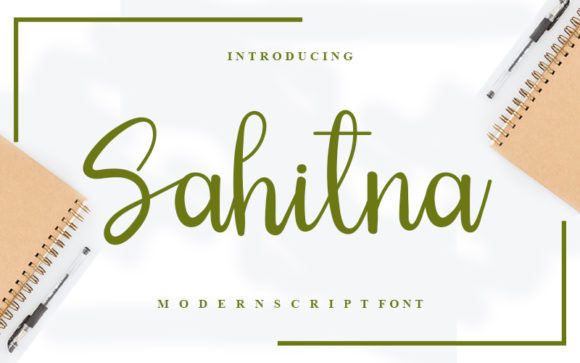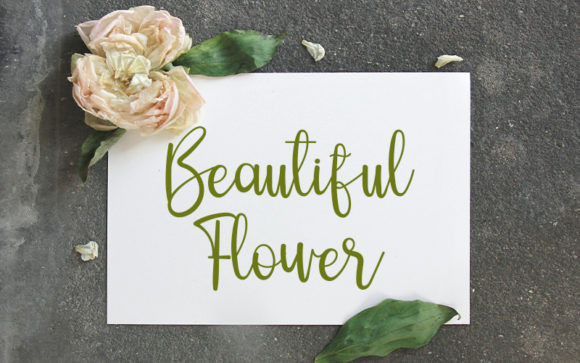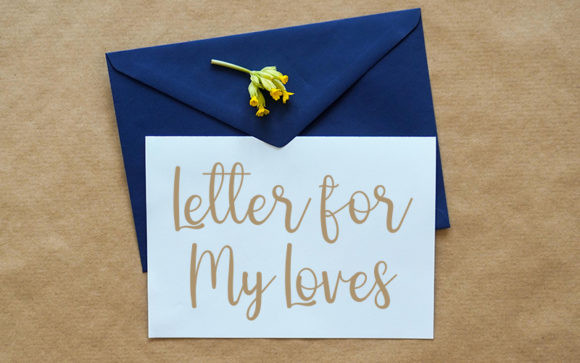
Sahitna Font
Sahitna is a neat and playful script font. Its sweet and full of life style makes this font a wonderful choice for brightening up your designs.